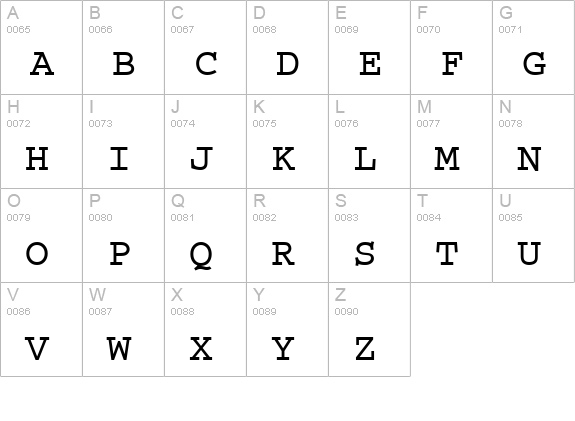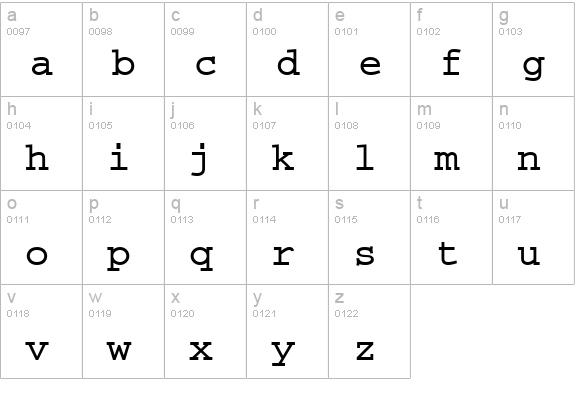
CourierM Bold Font Details
CourierM Bold is a strong, high-contrast variant in the CourierM typeface family \xE2\x80\x94 well suited to headlines, attention-grabbing titles, and strong calls-to-action.
CourierM Bold font is a striking and versatile typeface that exudes a sense of professionalism and modernity. Its bold and clean lines make it perfect for a wide range of design projects, from branding to editorial design. The strong presence of CourierM Bold commands attention and ensures that your message stands out. What's even better is that CourierM Bold is available for free download at FontsMarket.com. This means that you can easily access and use this stylish font without breaking the bank. Whether you are a designer looking to elevate your projects or a business in need of a fresh look, CourierM Bold is a fantastic choice that won't cost you a dime. Download it today and see how it can take your designs to the next level.